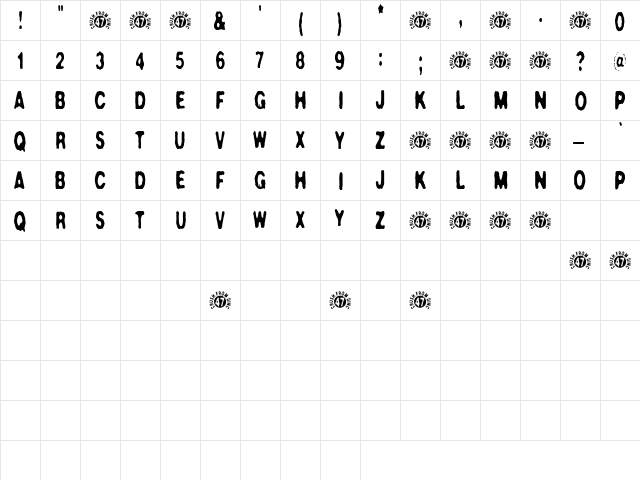
CrushNo47 Regular
Design Context for CrushNo47 Typeface
CrushNo47 is a composed and adaptable typeface that performs quietly and consistently across a wide range of design contexts.